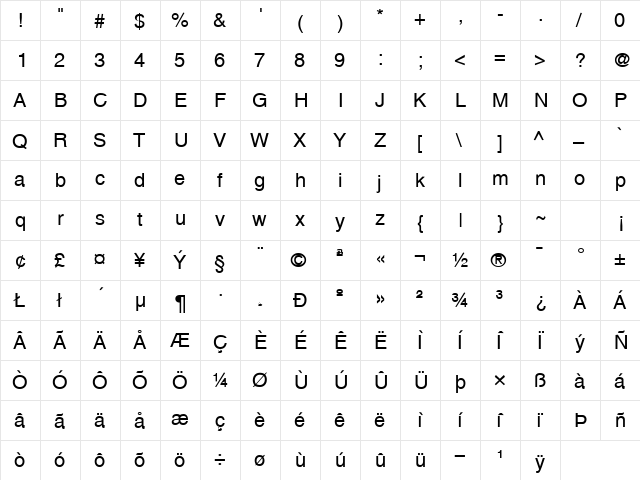
NewZurica Regular
Design Context for NewZurica Typeface
NewZurica takes a measured approach to typography — its balanced proportions and neutral character make it a reliable workhorse for both digital and print work.